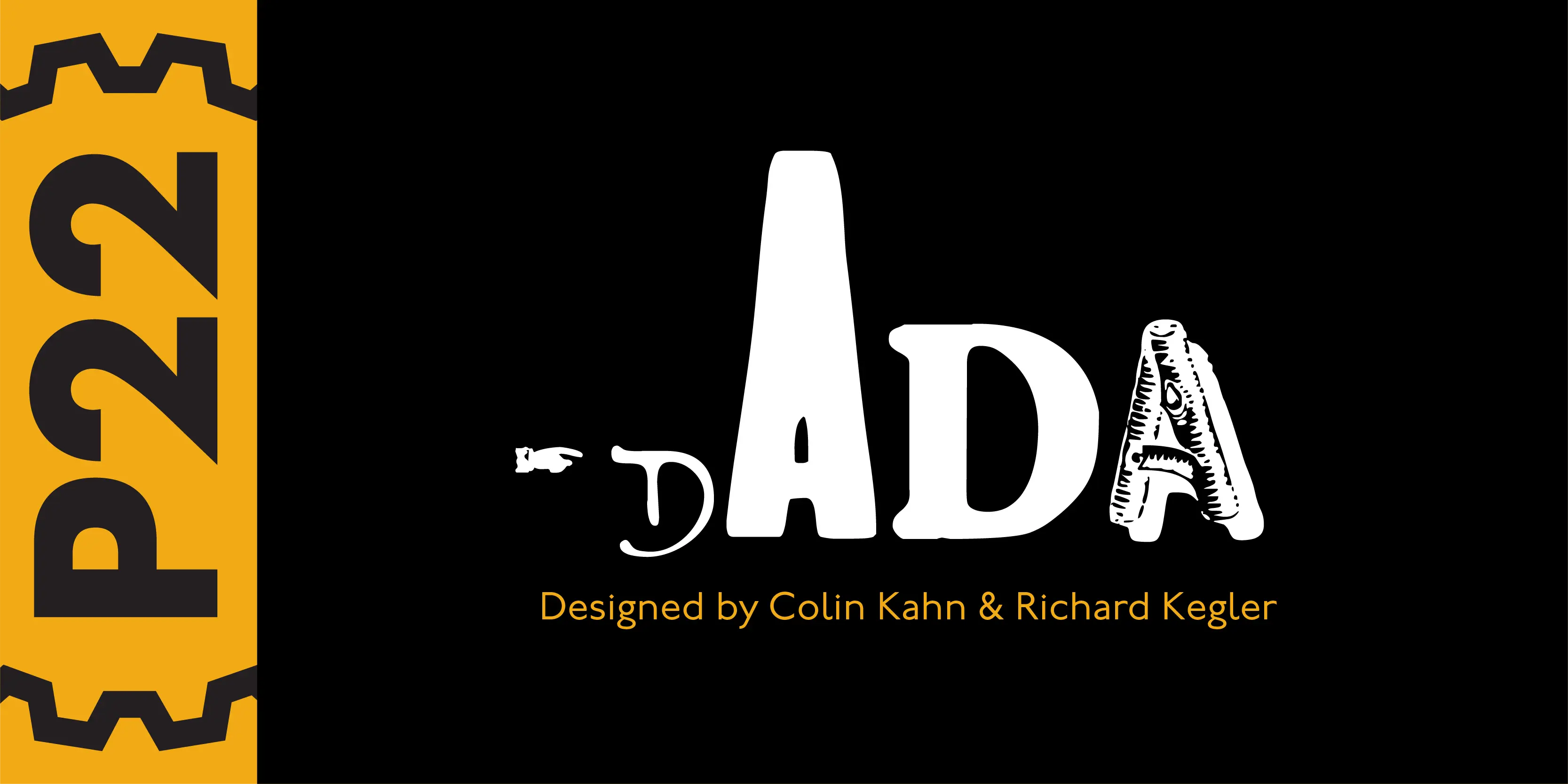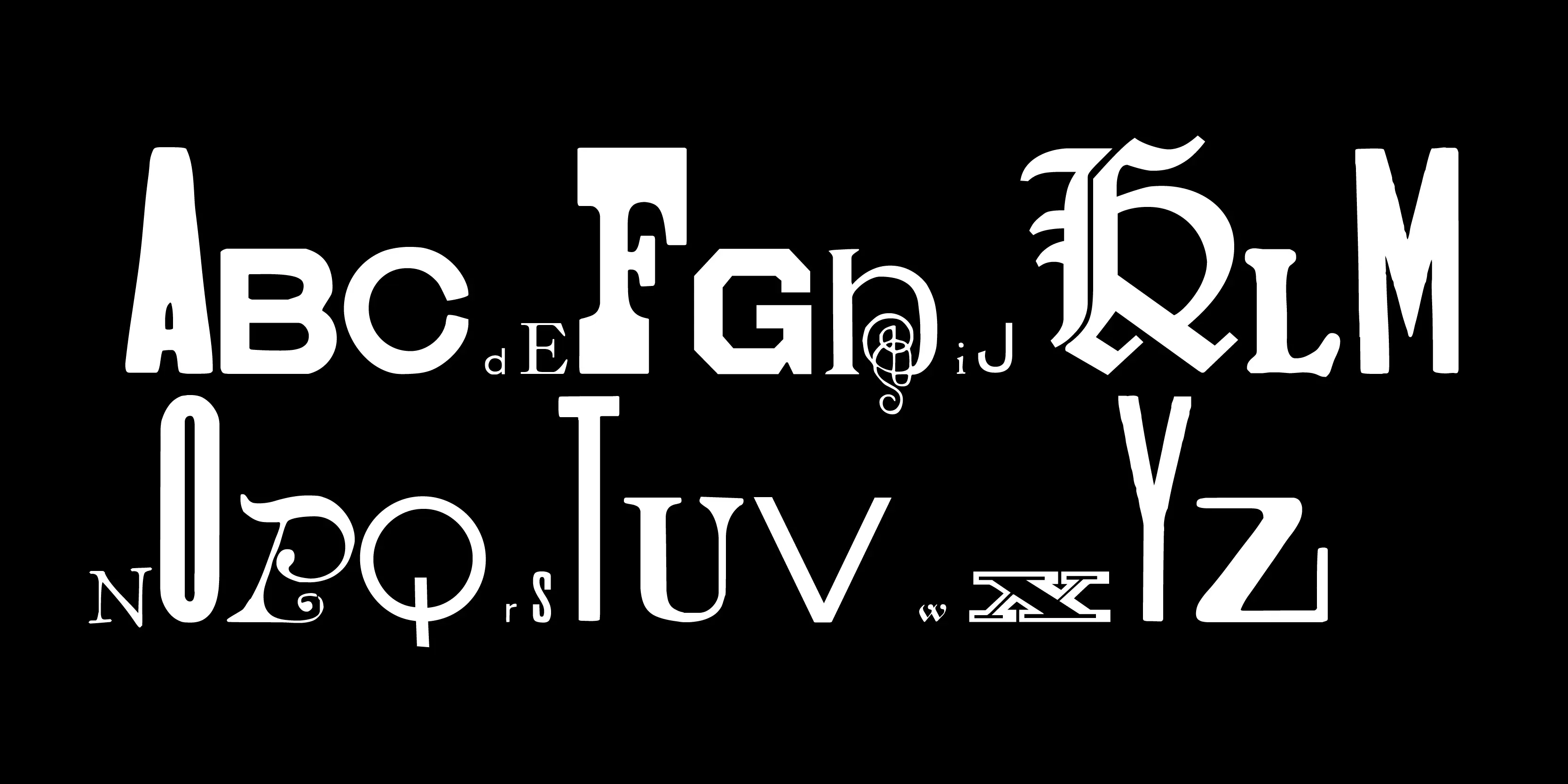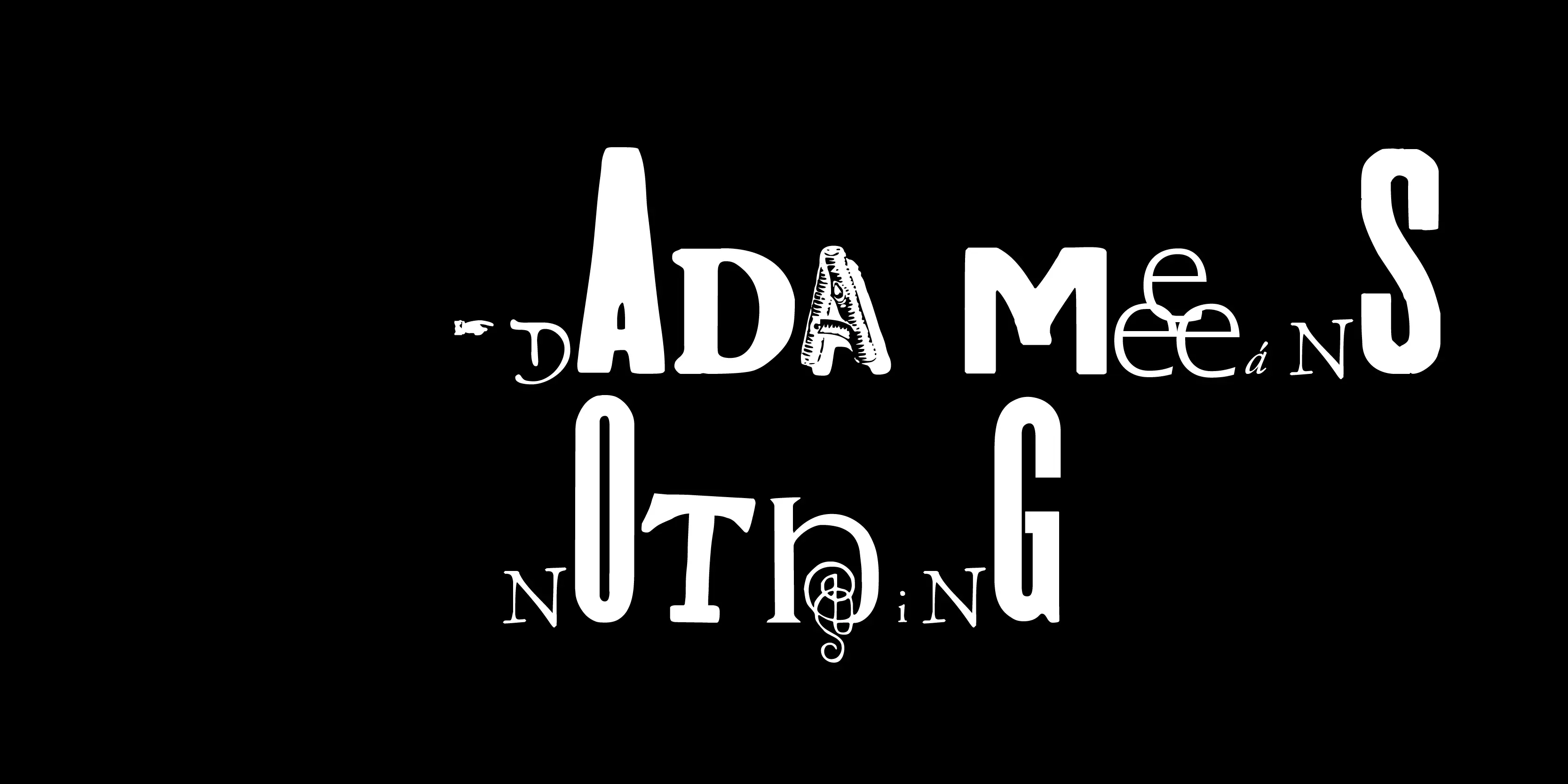
Dada Fonts
Dada
The original idea of the Dada font and randomness was given new life with the introduction of OpenType programming. P22 Dada includes over 500 glyphs of letters and images and can be used to create Dada inspired typography by simply selecting various OpenType features. P22 Dada was released in 2006 as “Dada Special Edition” to coincide with the “First Major International Dada Museum Exhibition in The United States” at the National Gallery of Art.
- Common Ligatures
- Discretionary Ligatures
- Fractions
- Old Style Numerals
- Small Capitals
- Swashes
- Titling Capitals